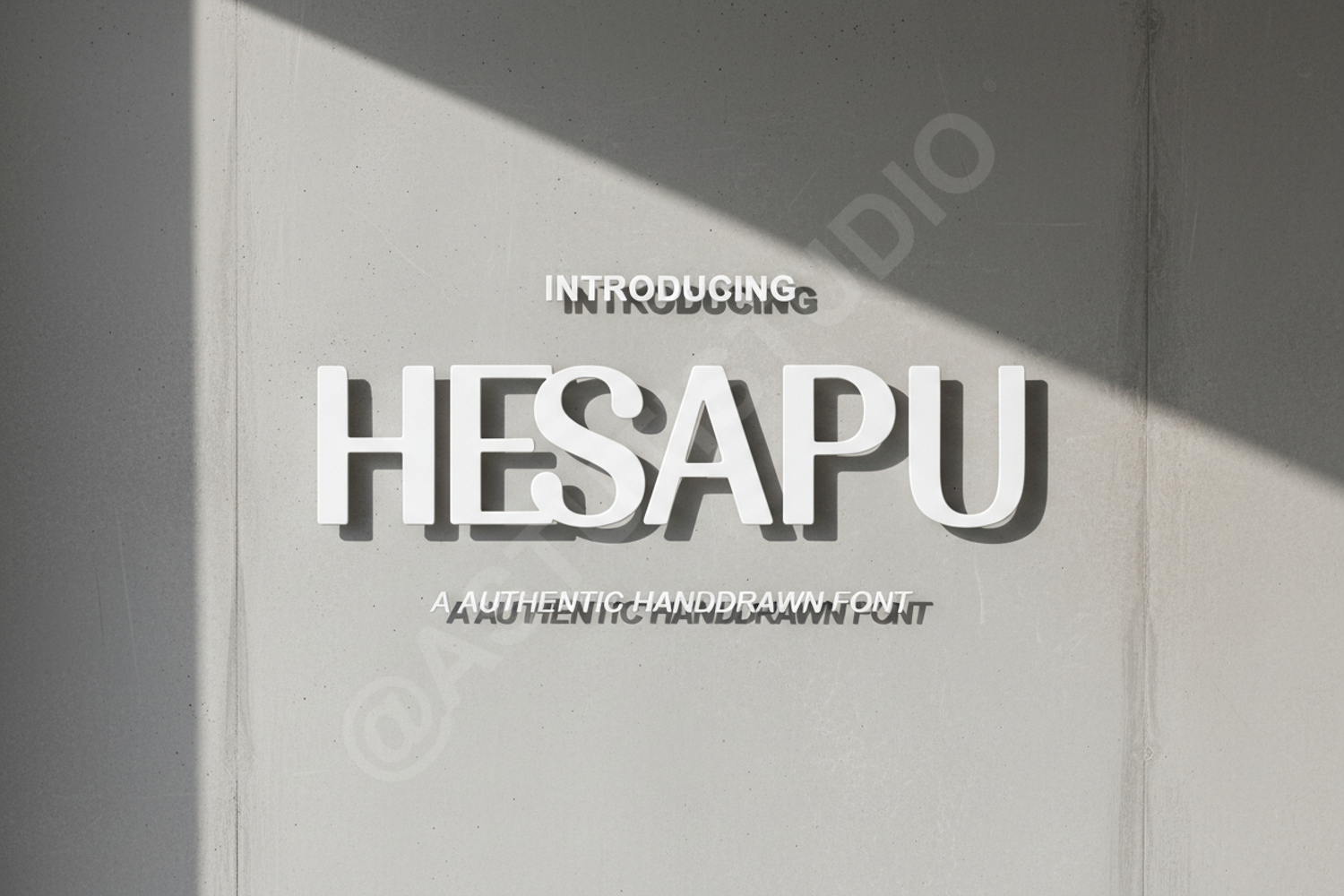
Hesapu - Modern Minimalist Sans Serif
Hesapu
Hesapu is a premium sans serif typeface meticulously crafted for clarity, balance, and modern sophistication. Designed with a focus on geometric precision and clean lines, Hesapu offers a professional aesthetic that elevates any creative project. Whether you are building a high-end corporate identity or a sleek digital interface, this font provides the versatility and readability required for high-impact design.
- Branding and Corporate Identity: Create a trustworthy and modern brand image.
- Logo Design: Perfect for minimalist and architectural logo marks.
- Editorial Layouts: Ideal for clean magazine spreads and book typography.
- Digital Design: Optimized for website headers, mobile apps, and UI/UX elements.
- Social Media: Stand out with crisp, legible typography on Instagram and Pinterest.